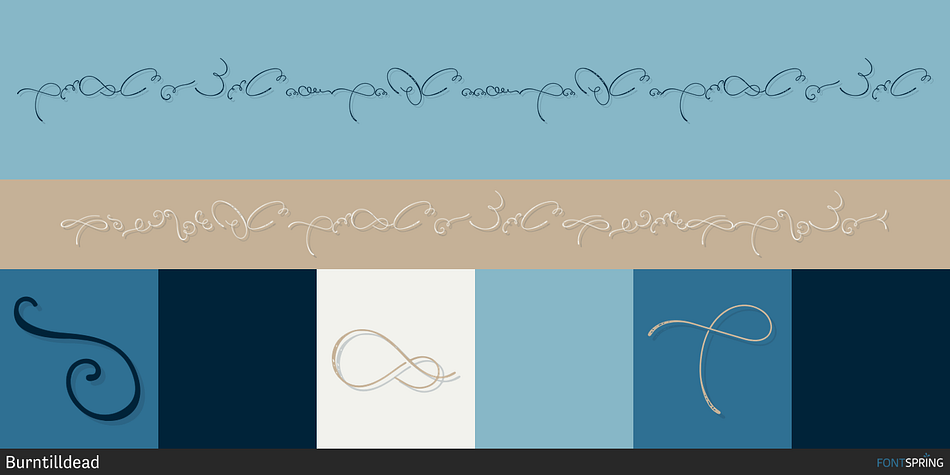
Angeline Swashes Angeline
Angeline is a font family. This typeface has five styles and was published by Burntilldead.
Introducing Angeline, A beautiful classic brush script font.